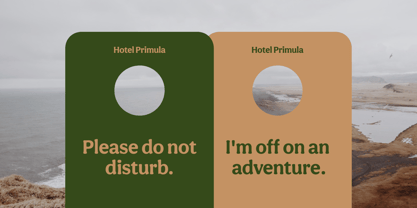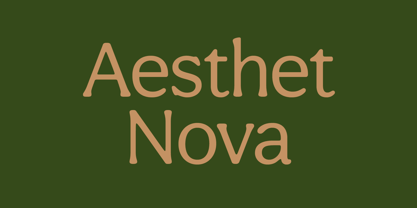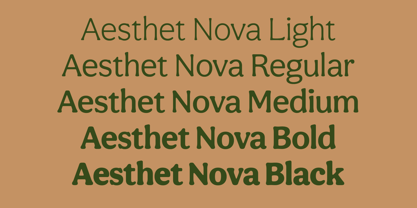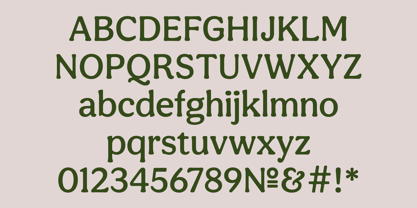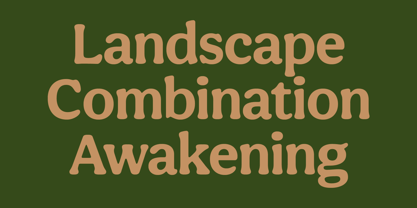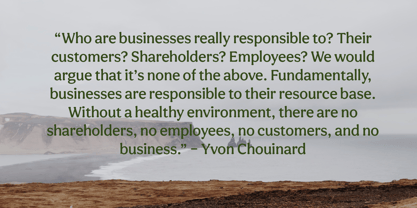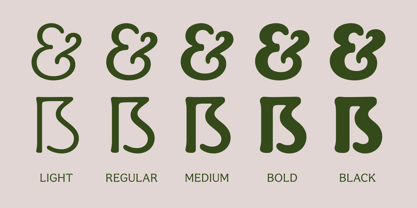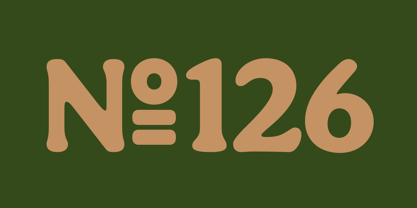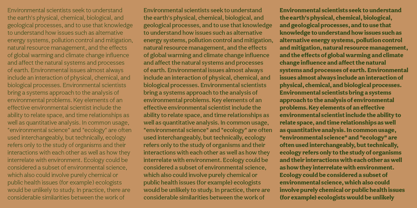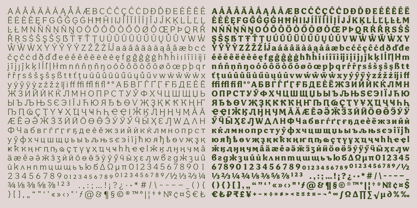
Aesthet Nova
by Inhouse Type
The Aesthet Nova Font Family was designed by Mariya Lish and published by Inhouse Type. Aesthet Nova contains 5 styles. More about this family
Aesthet Nova is a display type family. Released initially as Aesthet in 2015, it had a significant makeover. Inspired by the 70’s aesthetics, Aesthet Nova remains true to its original "back to nature" roots. It is a smooth talker with a larger than life personality. Equipped with an extended Cyrillic character set, it features rounded serifs, ball terminals and soft corners. Details include five weights and over 680 characters. OpenType features include inferiors, superiors, fractions and ligatures.
Designers: Mariya Lish
Foundry: Inhouse Type